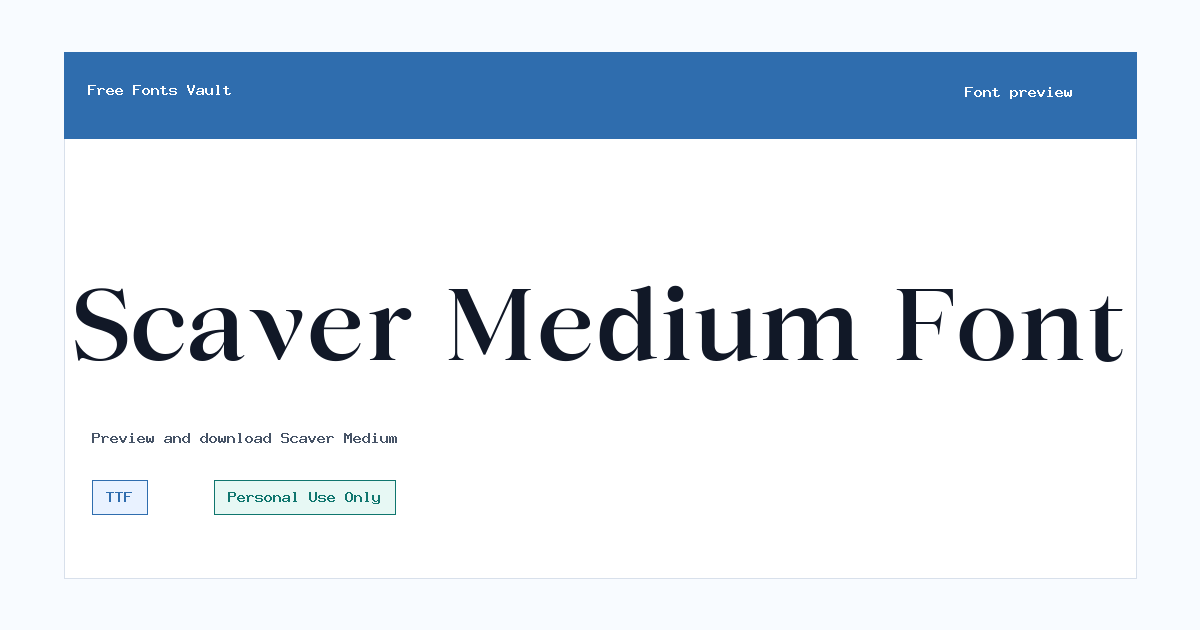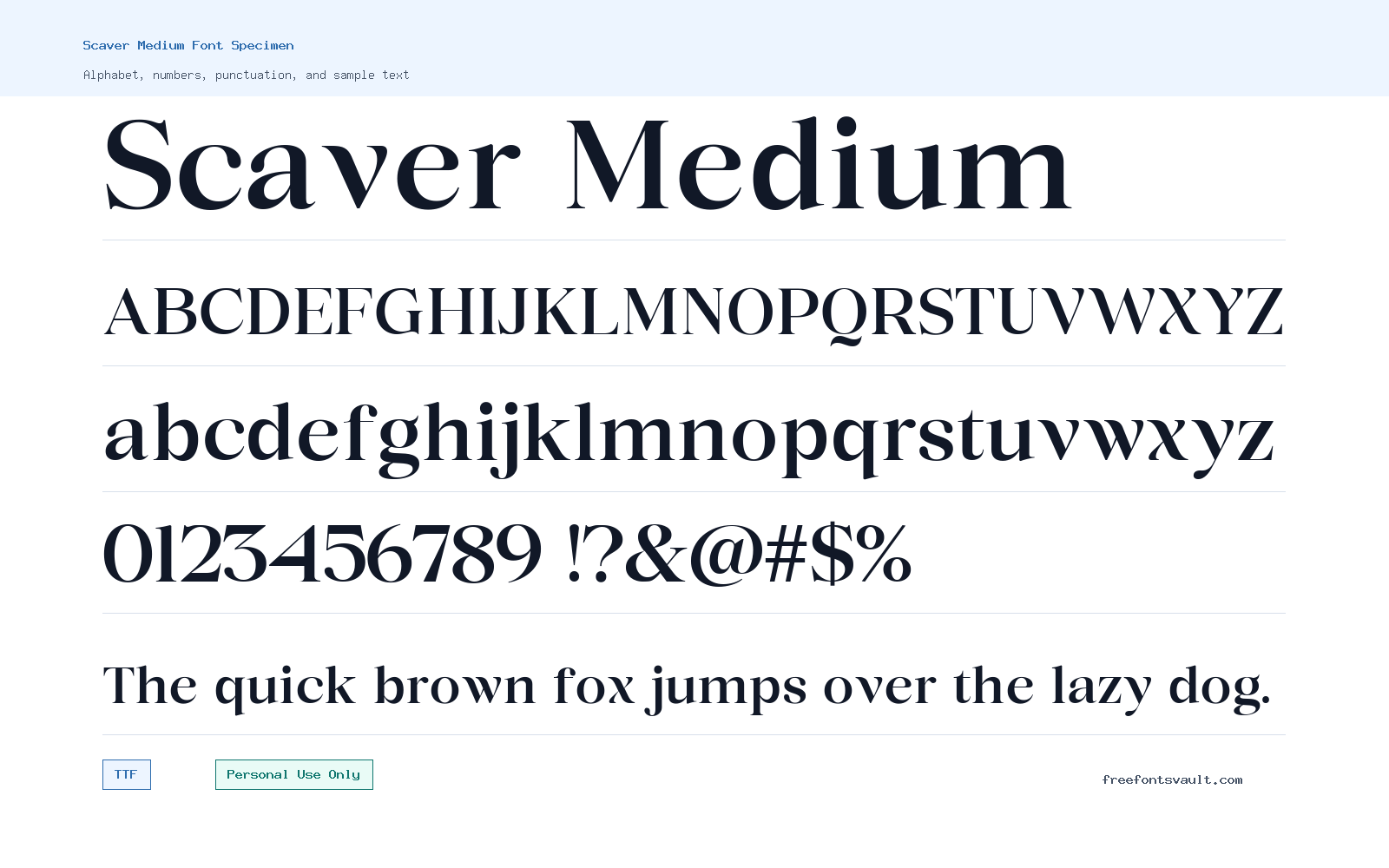
Scaver Medium
- Designer Glyphminds Studio (Graphicted.Co)
Scaver Medium is a serif font family with regular and italic TTF files, made for personal projects where a clean, composed text style is needed.
About Scaver Medium Font
Scaver Medium has a medium-weight serif look that gives text a steady, readable presence without feeling too heavy. The available files cover an upright style and a matching italic, so you can test basic hierarchy in the preview before downloading. Use the regular style for titles, short paragraphs, names, labels, and simple display text. Use the italic style when you need emphasis, quotes, captions, or a softer contrast beside the upright cut.
- Medium-weight serif style with upright and italic TTF files.
- Useful for testing simple title, emphasis, and short-text layouts.
- Regular 500 weight gives text more presence than a light cut.
- Italic companion helps create contrast without changing font families.
- Personal invitations, quotes, and stationery mockups.
- Short headings, nameplates, captions, and preview graphics.
- Editorial-style personal layouts where a serif tone fits.
- Testing regular-and-italic pairings before choosing a project font.
Scaver Medium is credited to Glyphminds Studio (Graphicted.Co). The page metadata lists Graphicted.Co as the designer link.